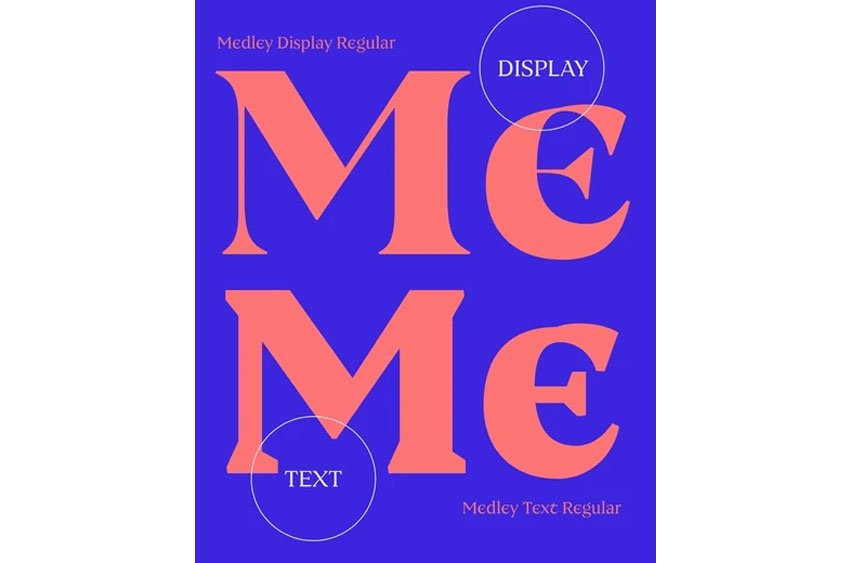
Medley Font is adventure started during an exploration of the Toulouse Scriptorium online archives. One piece struck us for its elegant, almost decorative, strokes.
However, the typeface then became a true ‘medley’, drawing influence from uncial, Carolingian minuscule, and a more traditional approach of brush lettering.